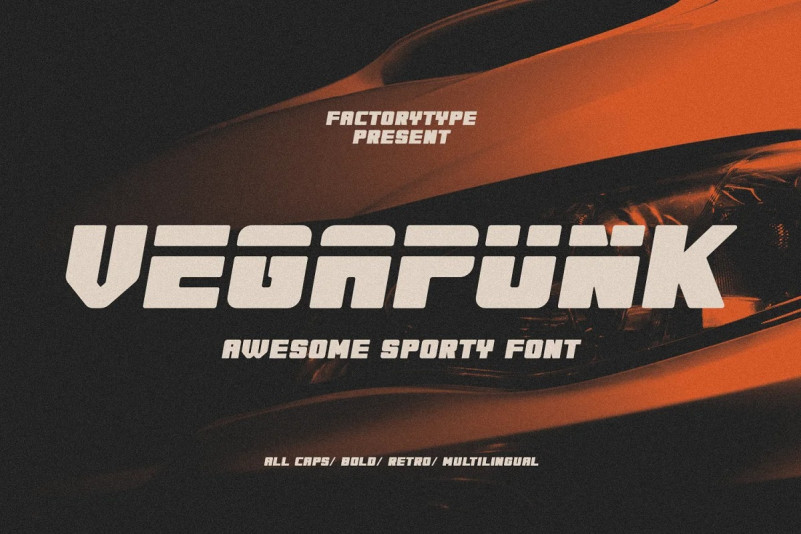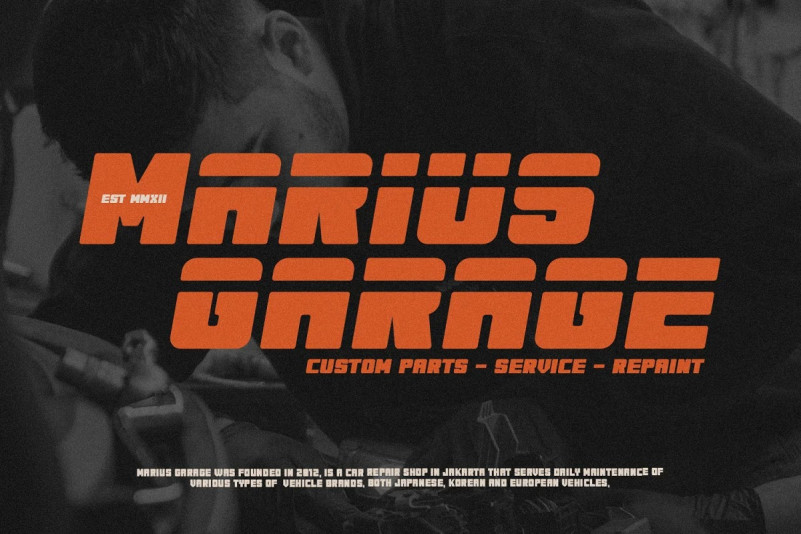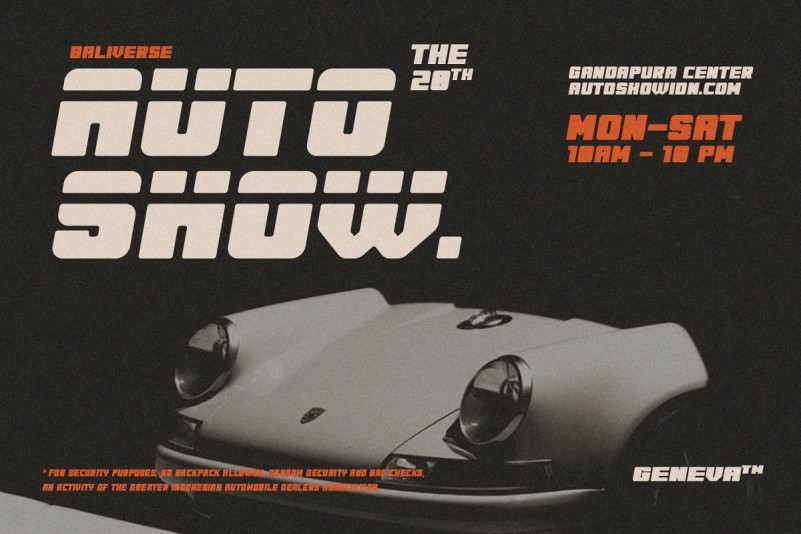
Vegapunk Font Family
The awesome sports font Vegapunk has unique cutouts, a dynamic slant, and gives the impression of power and speed. Ideal for fast-paced sports titles like auto racing, cycling, running sporting events, and automotive game logos and monograms, as well as other dynamic modern or vintage text. A wide variety of characters are offered by the available Ligatures and Italic styles, giving your project design an unique appearance.